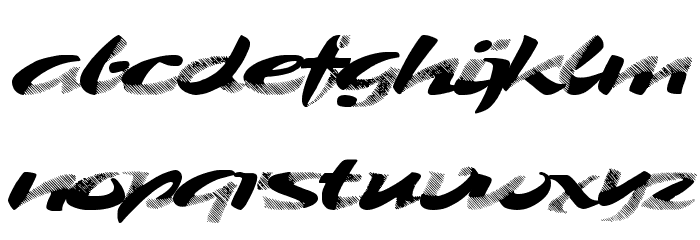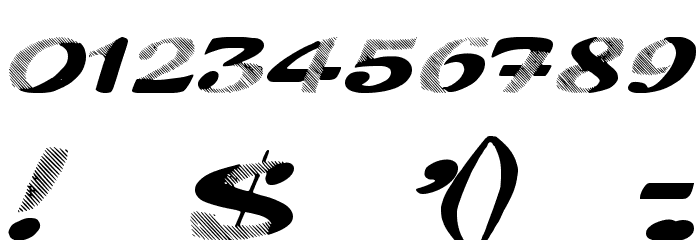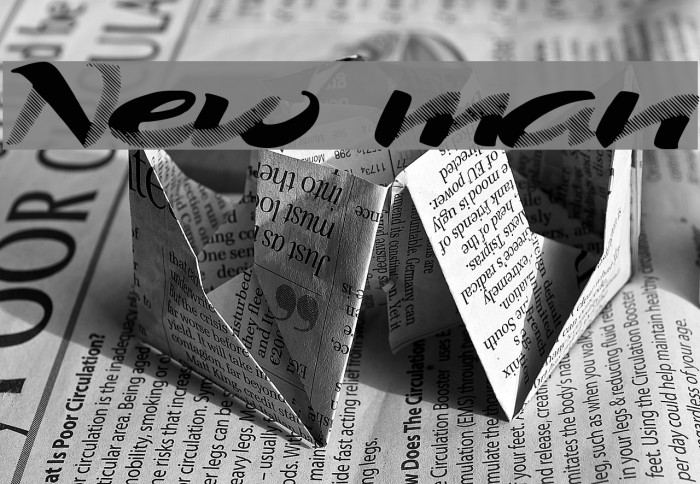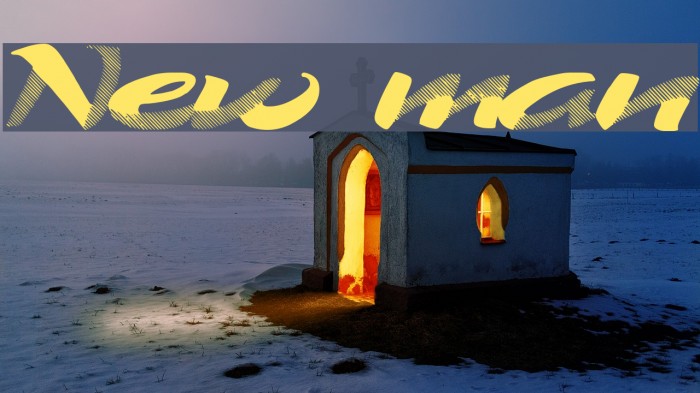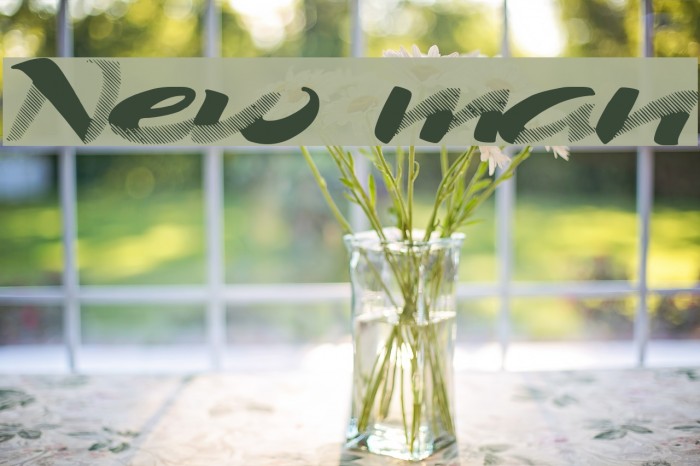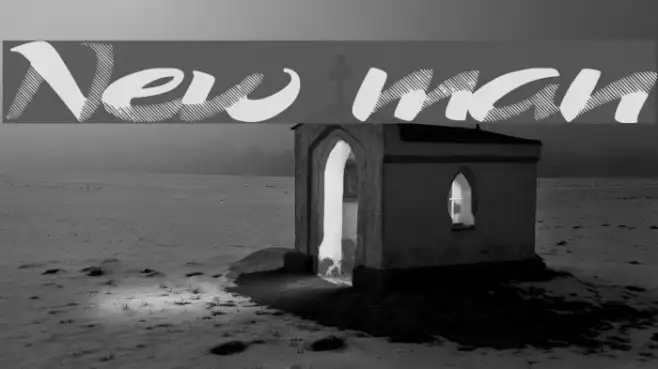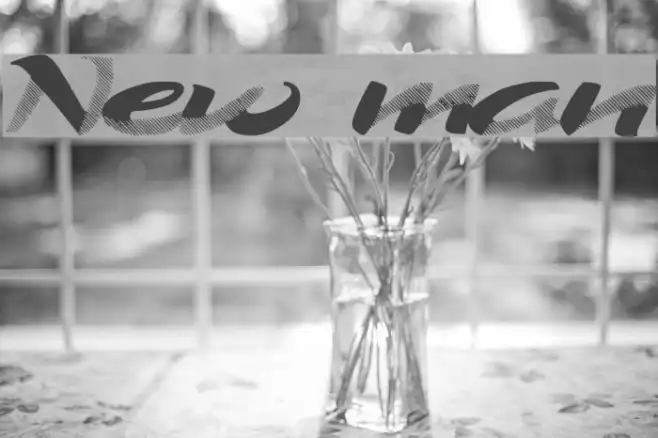
New man Font
This font features a dynamic and energetic style with a slanted, italicized appearance. The strokes are bold and exhibit a high contrast between thick and thin lines, creating a sense of movement and fluidity. The characters are closely spaced, enhancing the cohesive and flowing nature of the text. The uppercase and lowercase letters maintain a consistent style, with sharp angles and smooth curves. Numbers and special characters follow the same design principles, ensuring uniformity across all elements. The font's unique texture, achieved through a combination of solid and striped patterns, adds a modern and artistic touch.
A bold, italicized font with high contrast and dynamic movement.
- Proposed Projects: Ideal for branding, advertising, and modern artistic projects where a bold statement is needed.
- Character Spacing: Tight